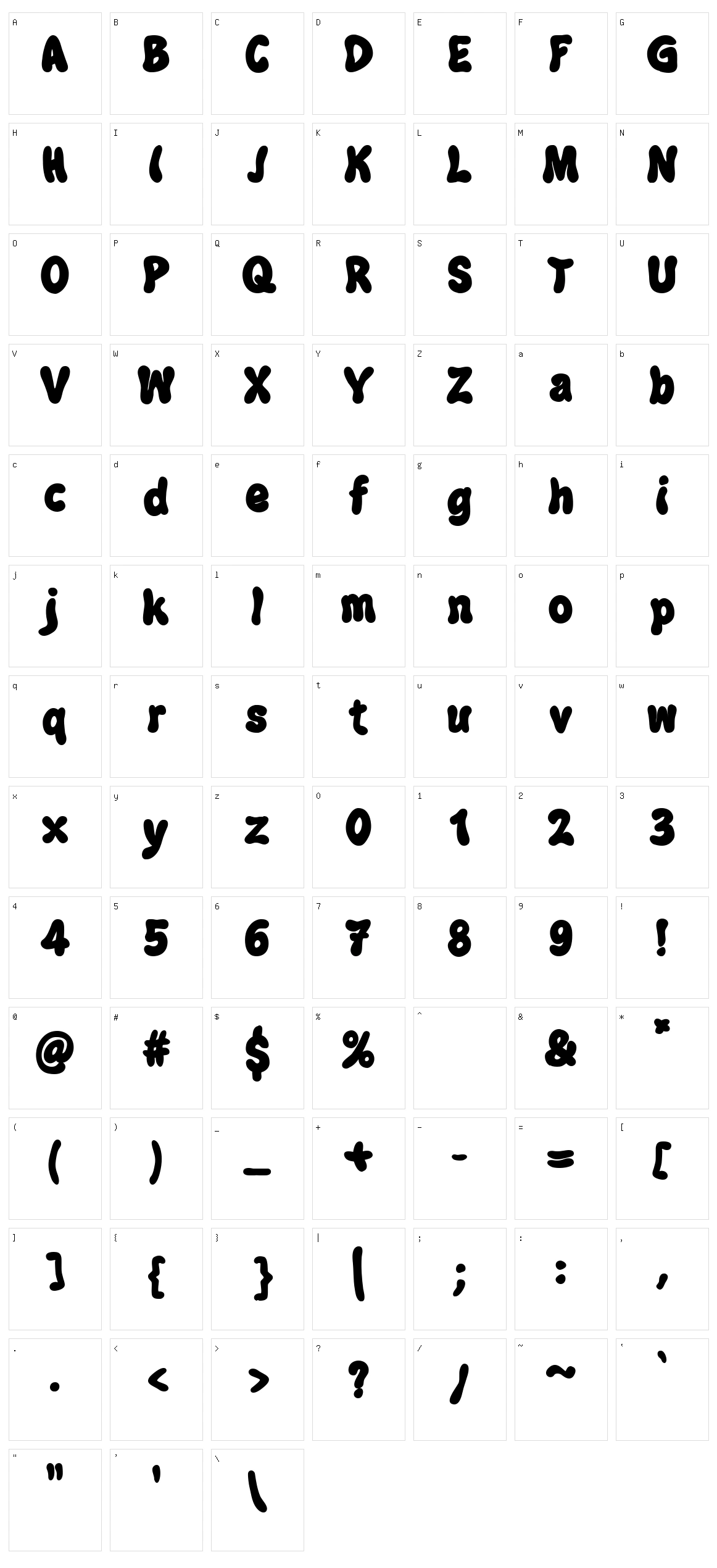
The free font Jazz Ball is carefully designed by Cyril Mikhailov, showcasing a thoughtful balance of creativity and usability and falls under the Groovy font style. When you download the ZIP file, it contains only 130.45 KB of font files, making it lightweight and quick to download. Please review the license details below to understand permitted usage and distribution rights. If license information is not available, we recommend using this font for personal projects only or contacting the author directly for commercial usage permissions.